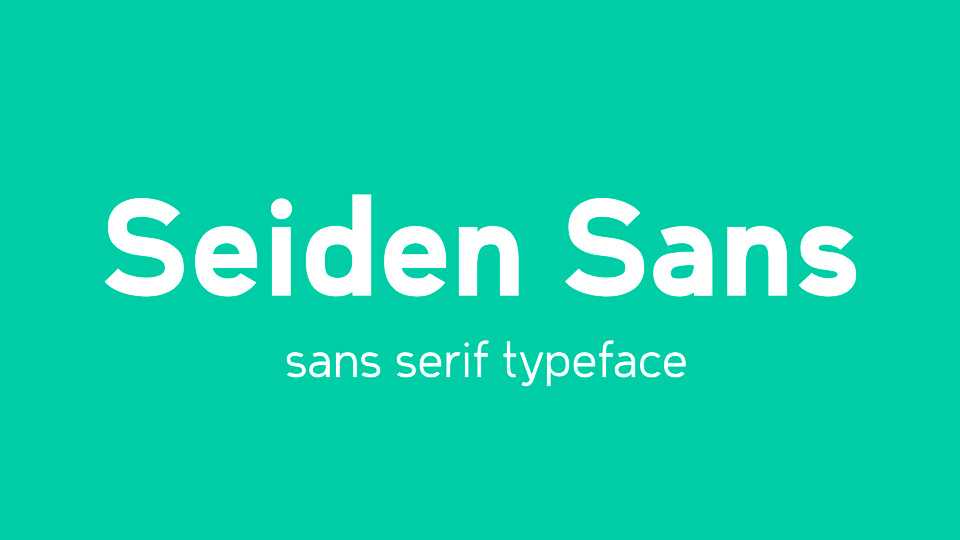
Download Seiden Sans, a sans serif font family in three weights, inspired by both neo-grotesque and geometric typefaces. Seiden Sans was created in an attempt to combine the two aesthetics without compromising legibility.
Designer: Kevin Beronilla